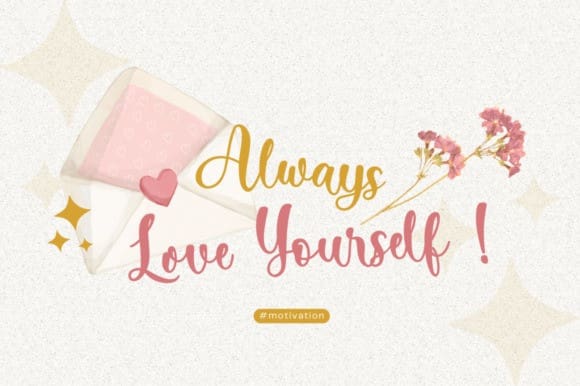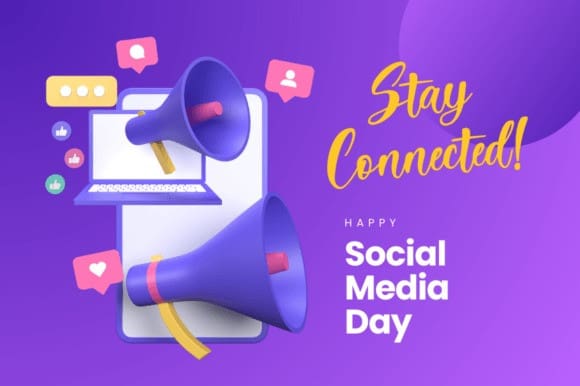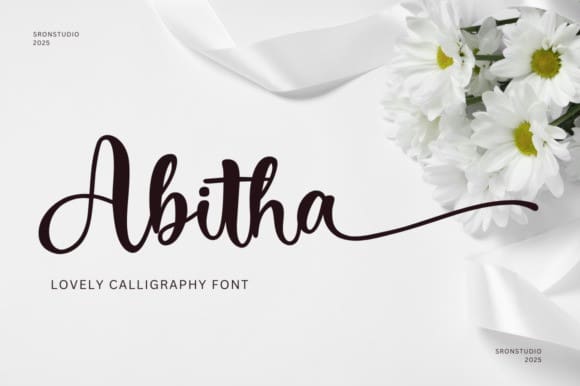
Abitha Script Font
Abitha Script Font is a lovely calligraphy font that radiates elegance and charm. With its smooth, flowing curves and delicate strokes, this font is perfect for creating romantic and heartfelt designs. Ideal for wedding invitations, greeting cards, branding, logos, or any project that needs a touch of sophistication and beauty, Abitha Script adds a timeless appeal to your work. Its graceful letterforms make every word feel special and full of love.